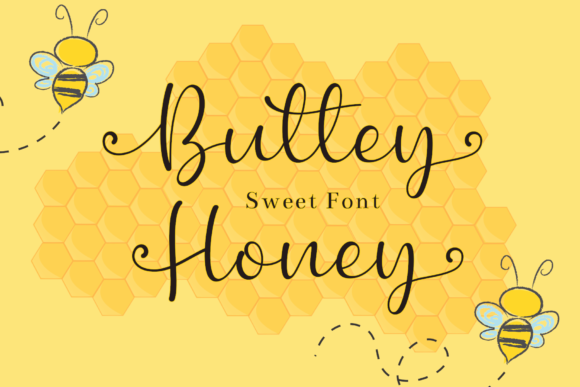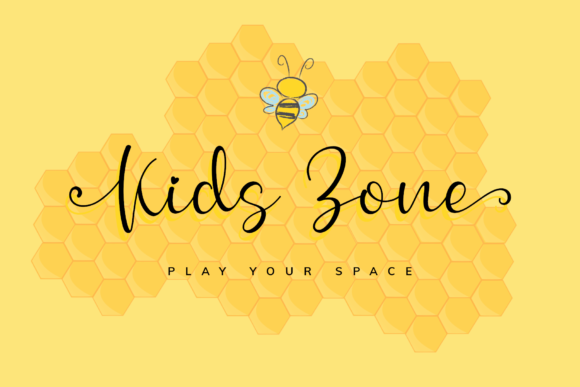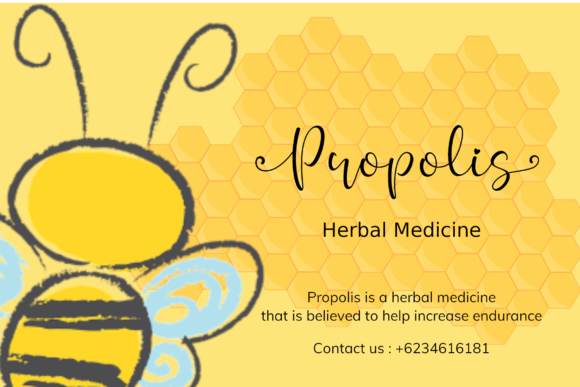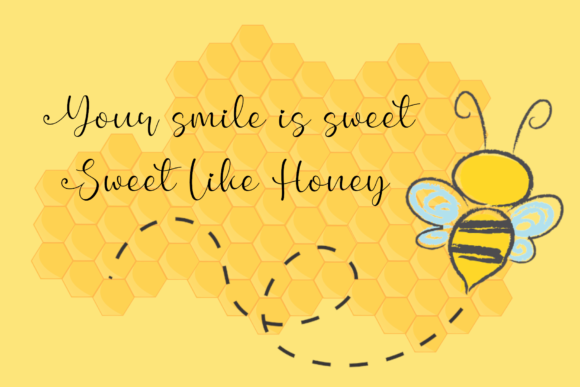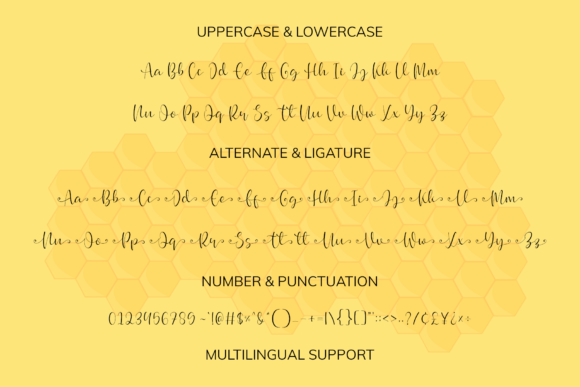
Buttey Honey Font
About Buttey Honey Font
Buttey Honey is a cute and casual script font with an incredibly friendly feel. This font will look outstanding in any context, whether it’s being used on busy backgrounds or as a standalone headline!